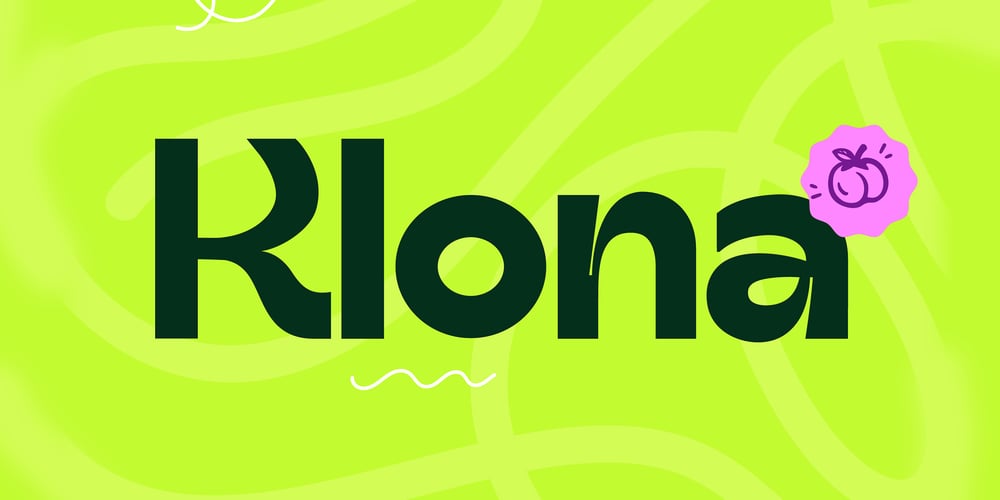
CCS Klona Font Family was designed by Kurt Harahap and published by Creative Corner Studio. CCS Klona contains 5 styles and family package options. Introducing Klona, a fun versatile sans serif font that brings a touch of joy and friendliness to your designs. Its bold, extended style and cheerful personality make it ideal for branding, logos, and websites. With five weight variations and an extensive character set, including numerous ligatures, Klona offers unparalleled flexibility for customizing your projects. Whether you’re looking to create bold, impactful headlines or subtle, nuanced body text, Klona has you covered. Download Klona today and add a touch of fun to your designs.